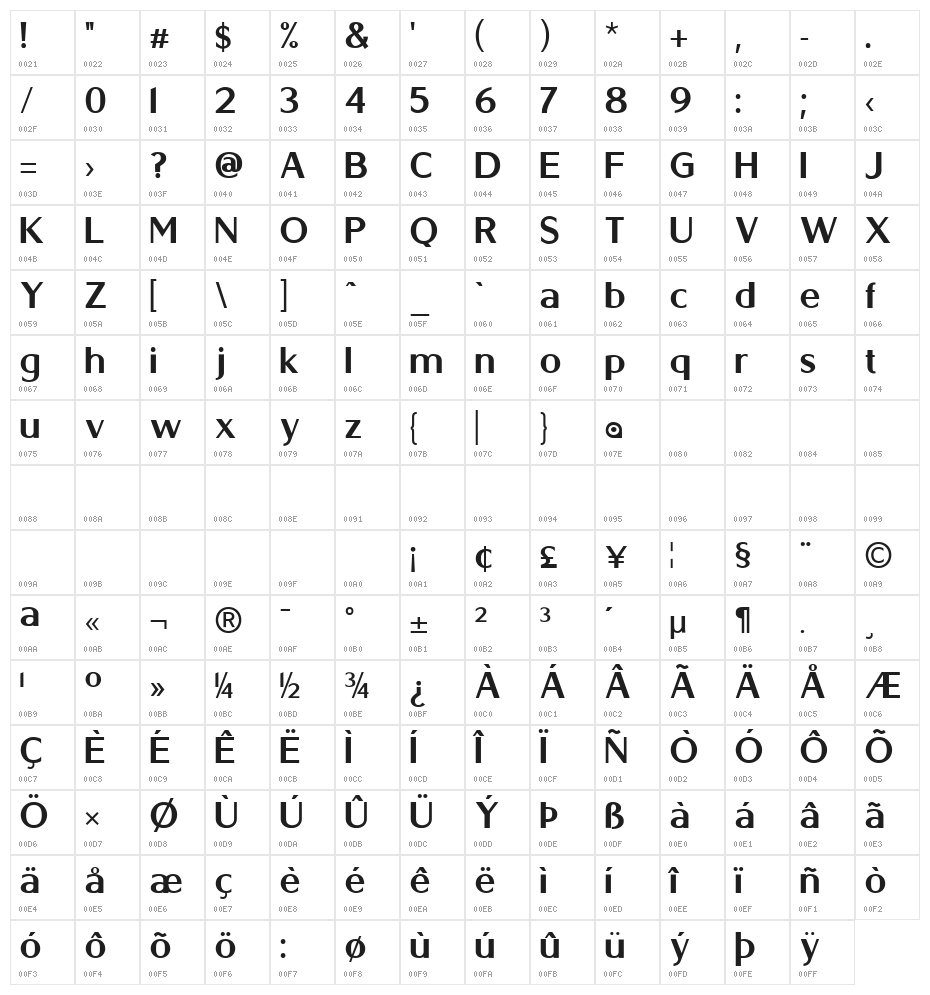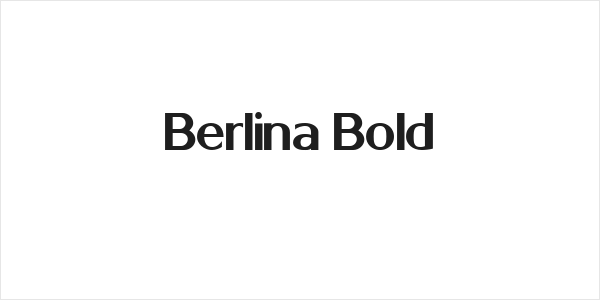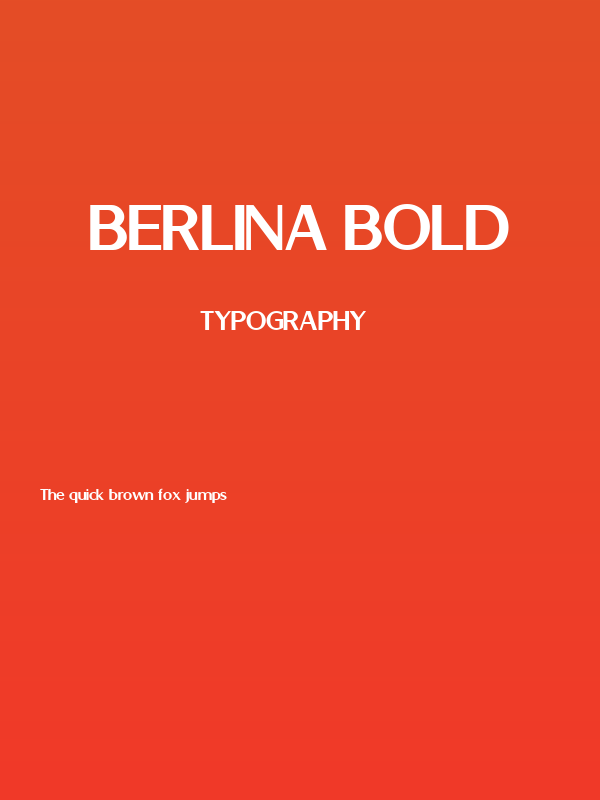
Berlina Bold Font
Berlina Bold Description
This font exhibits a strong and modern sans-serif style with clean, bold lines and a uniform stroke width. The characters are well-defined with a geometric influence, providing a sense of stability and clarity. The uppercase letters are tall and commanding, while the lowercase letters maintain a consistent height, enhancing readability. The numerals are distinct and balanced, ensuring they stand out in any context. Special characters are crafted with precision, maintaining the overall aesthetic of the font. This font is versatile, suitable for a wide range of applications from digital to print media.
Use CaseHeadlines, Logos, Digital interfaces
Proposed ProjectsIdeal for branding, advertising, headlines, and digital interfaces where clarity and impact are essential.